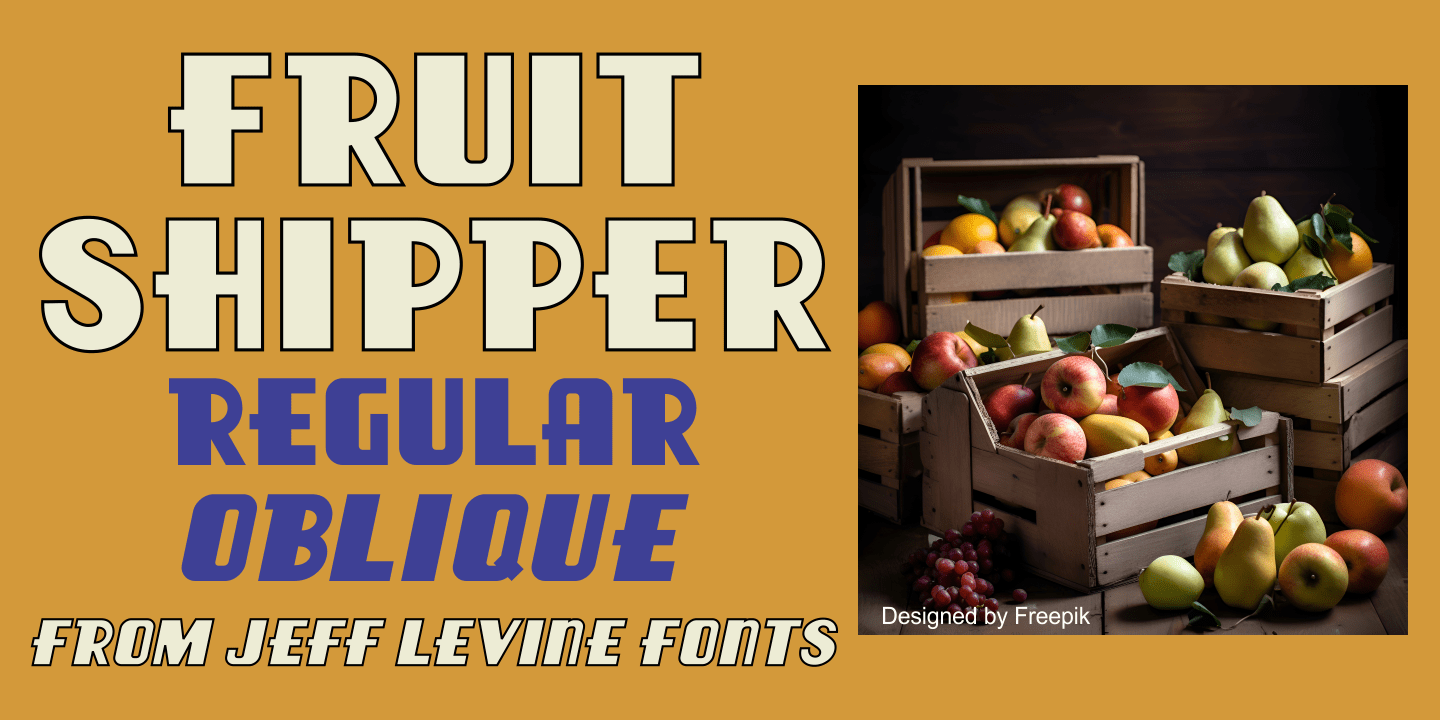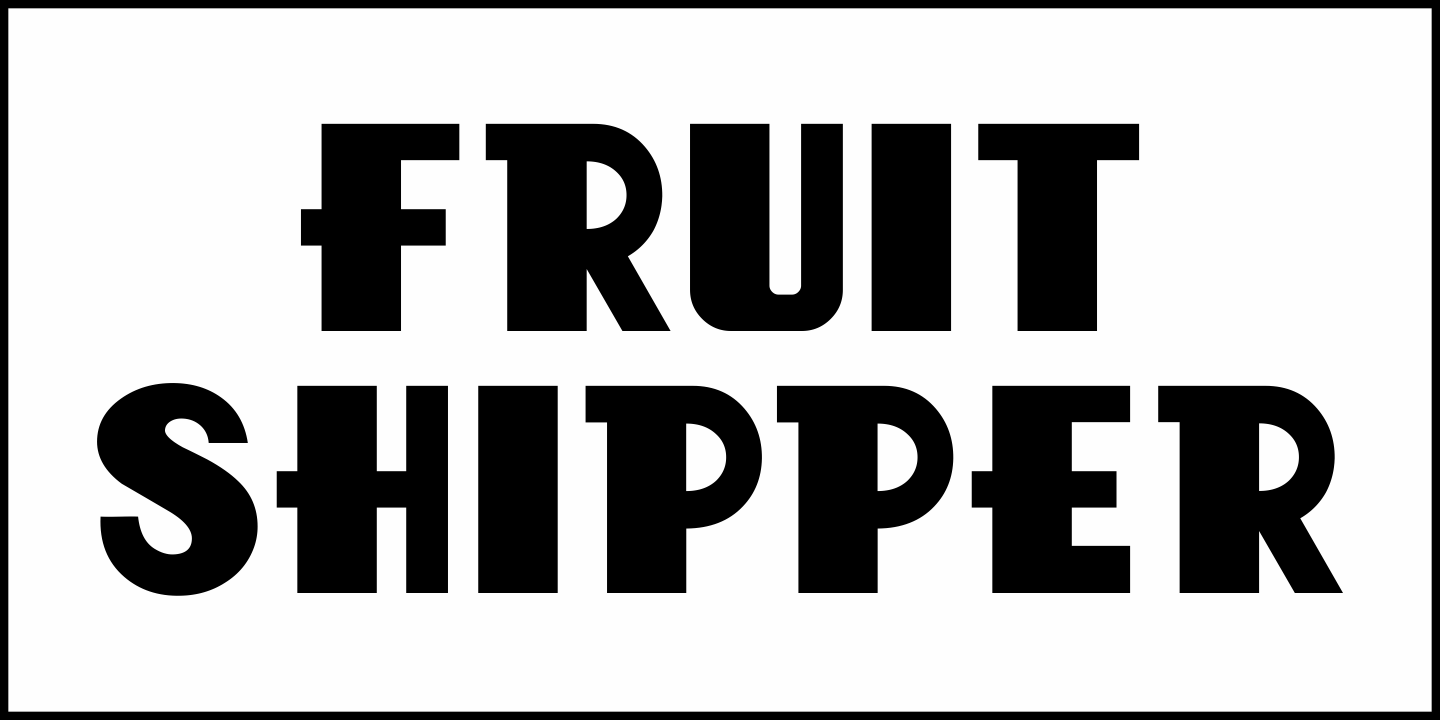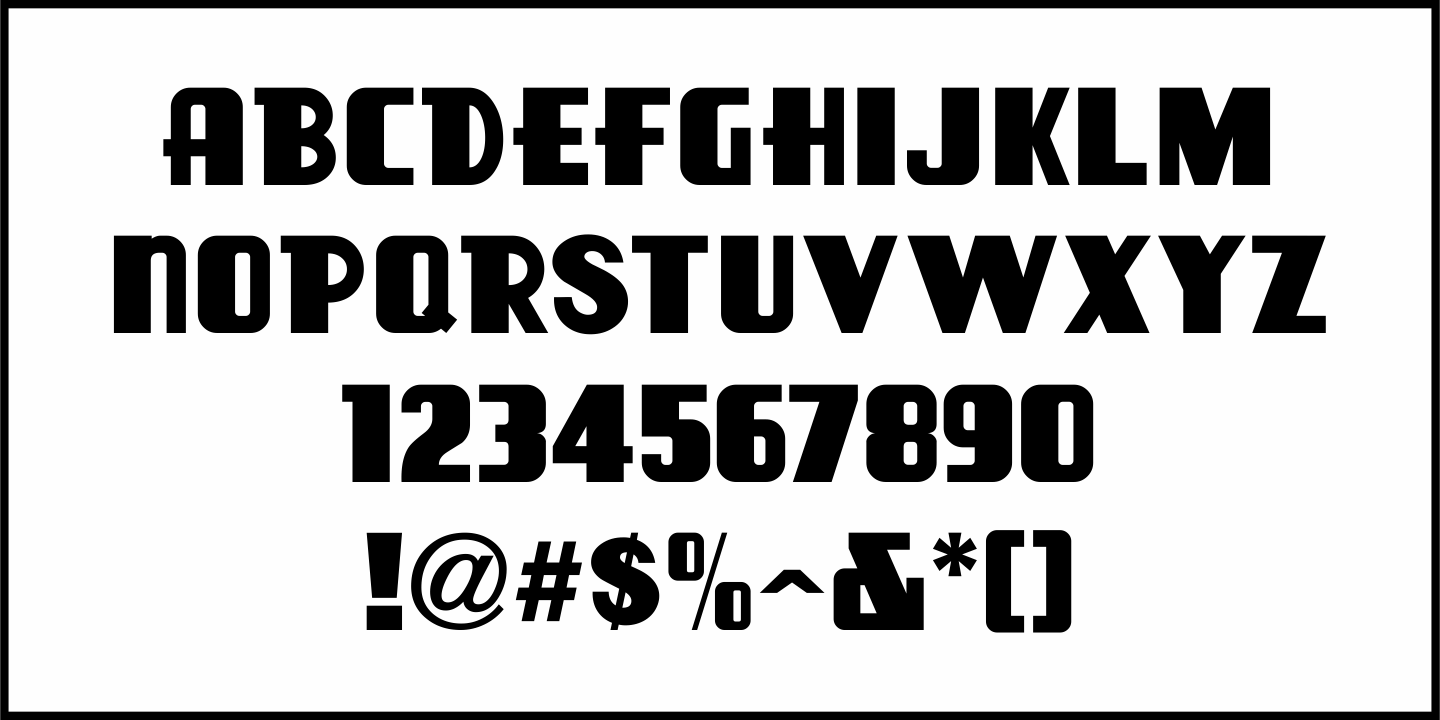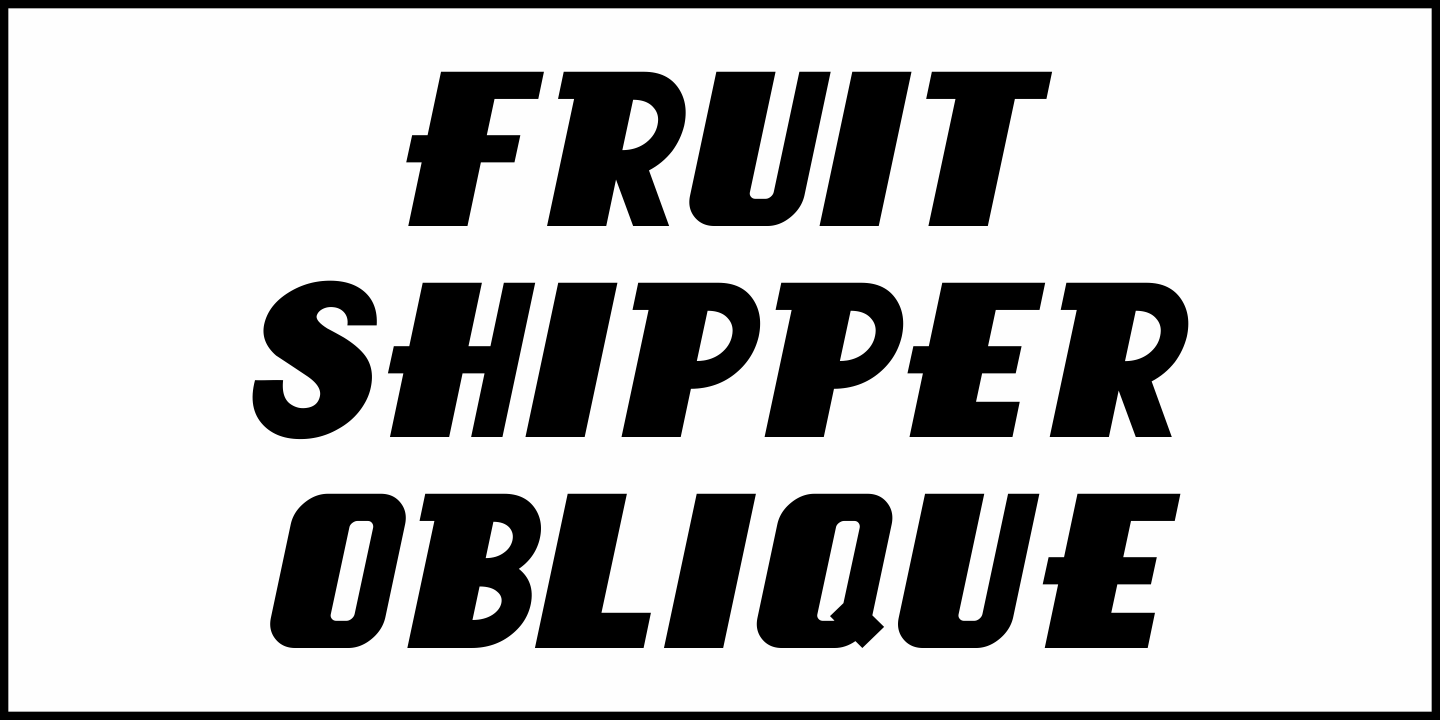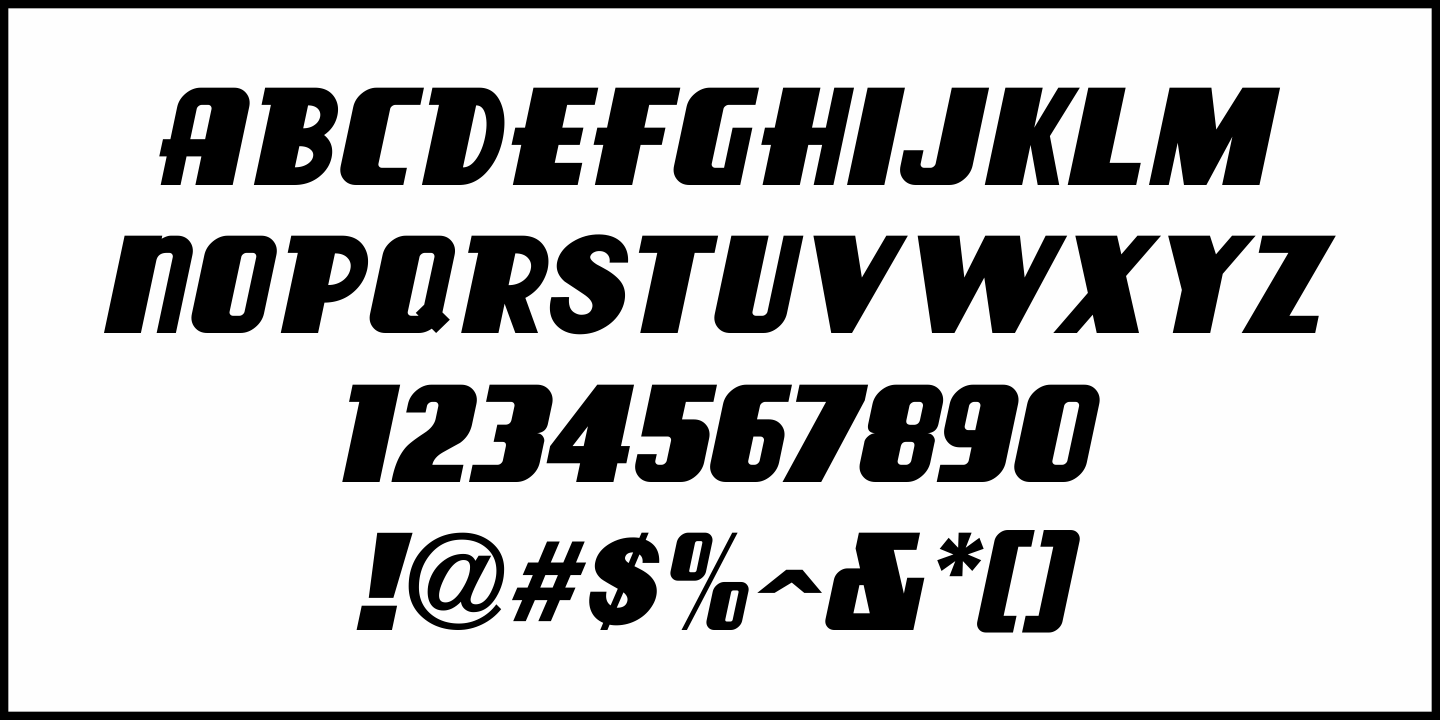
Fruit Shipper
The ultra bold, Art Deco sans serif hand lettering found on a 1930s Spanish fruit crate label from the A. Valldecabres company served as the model for Fruit Shipper JNL, which is available in both regular and oblique versions.